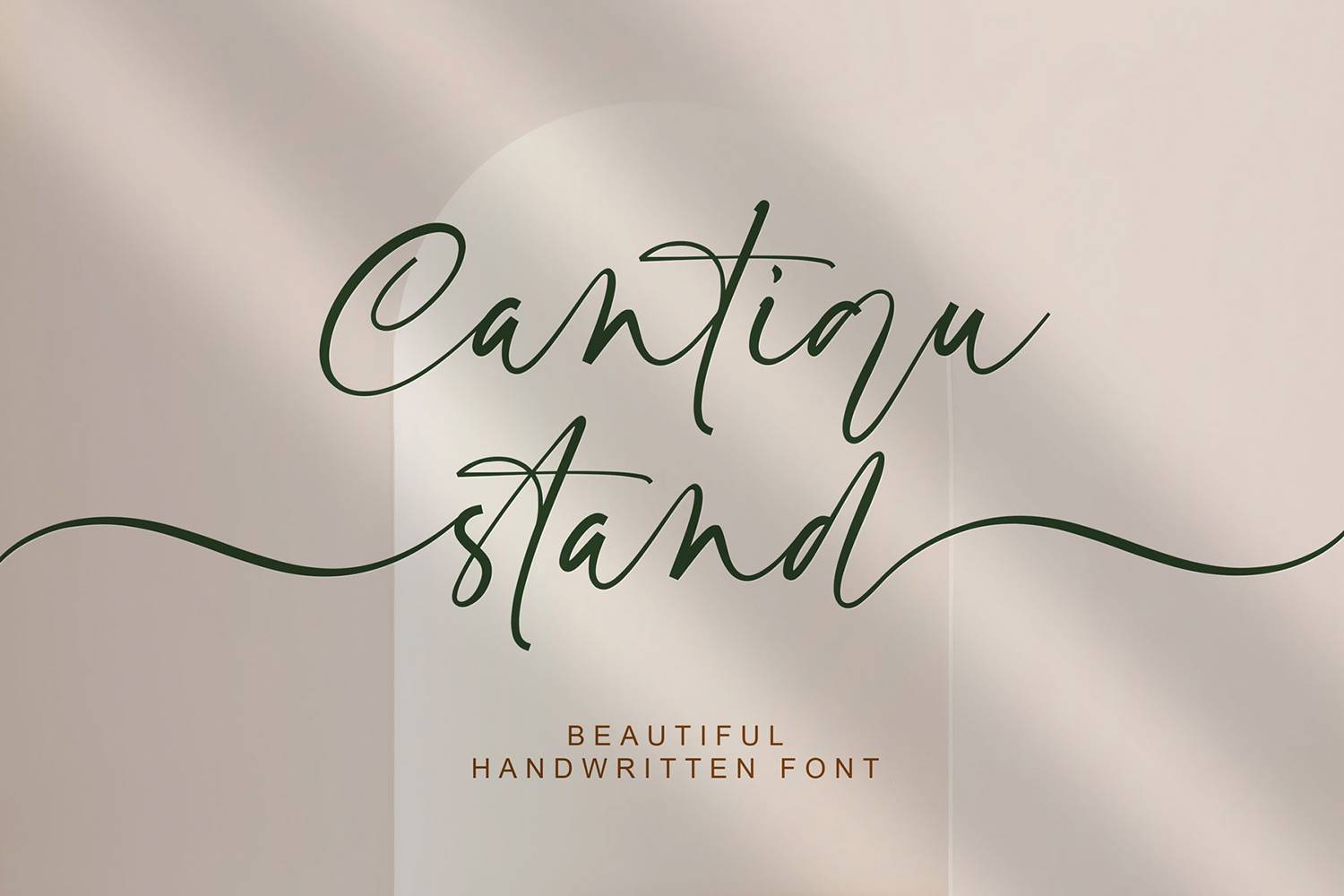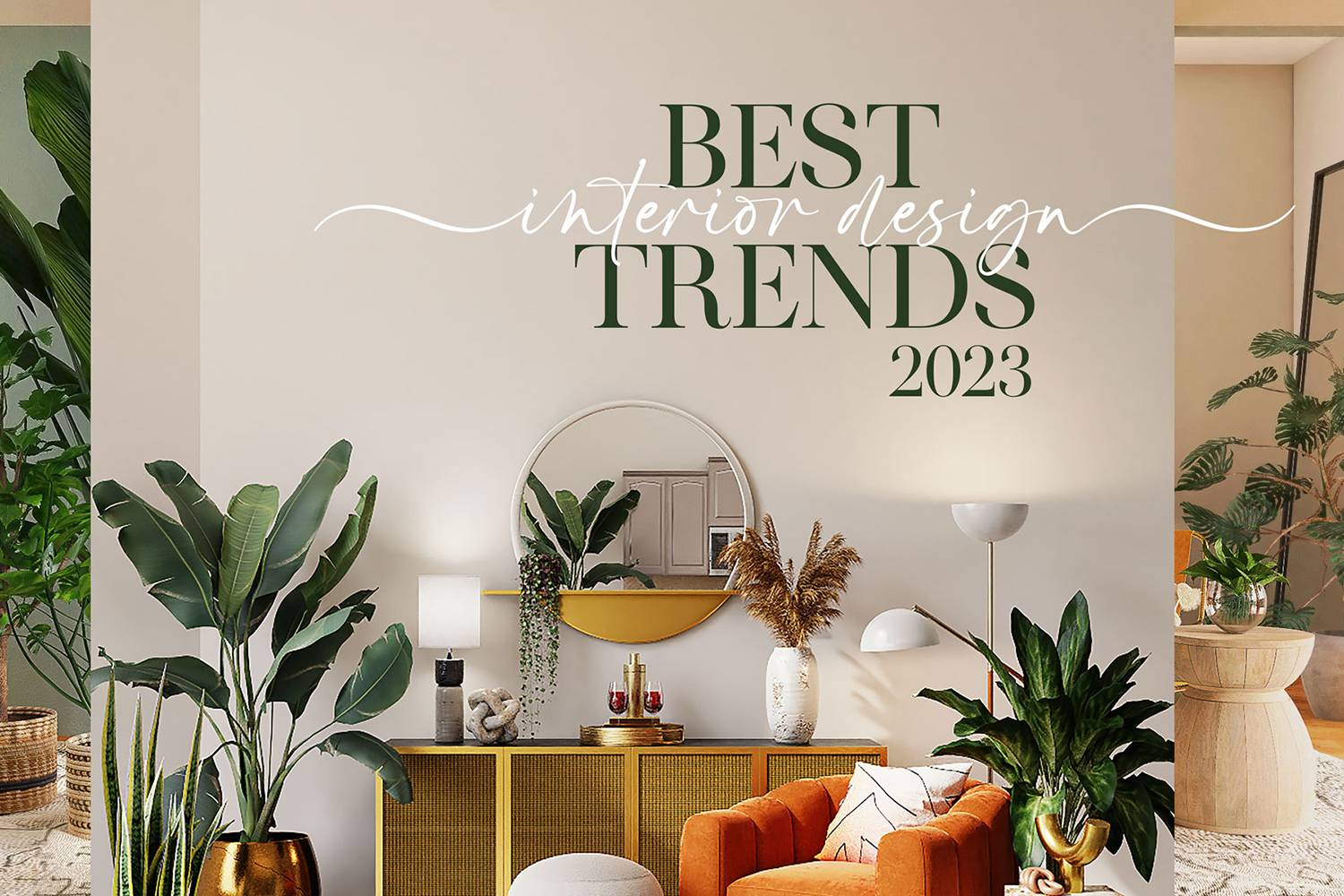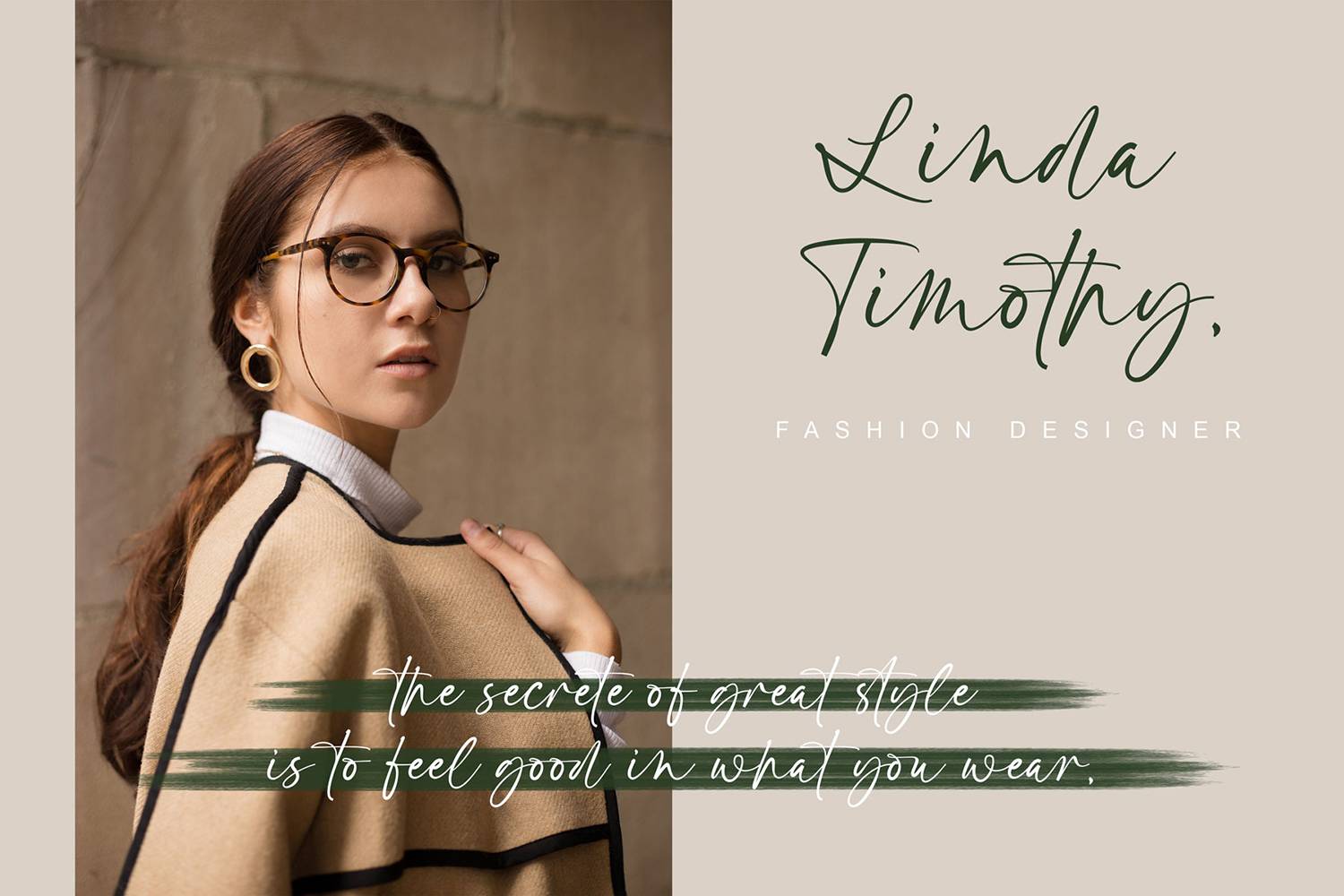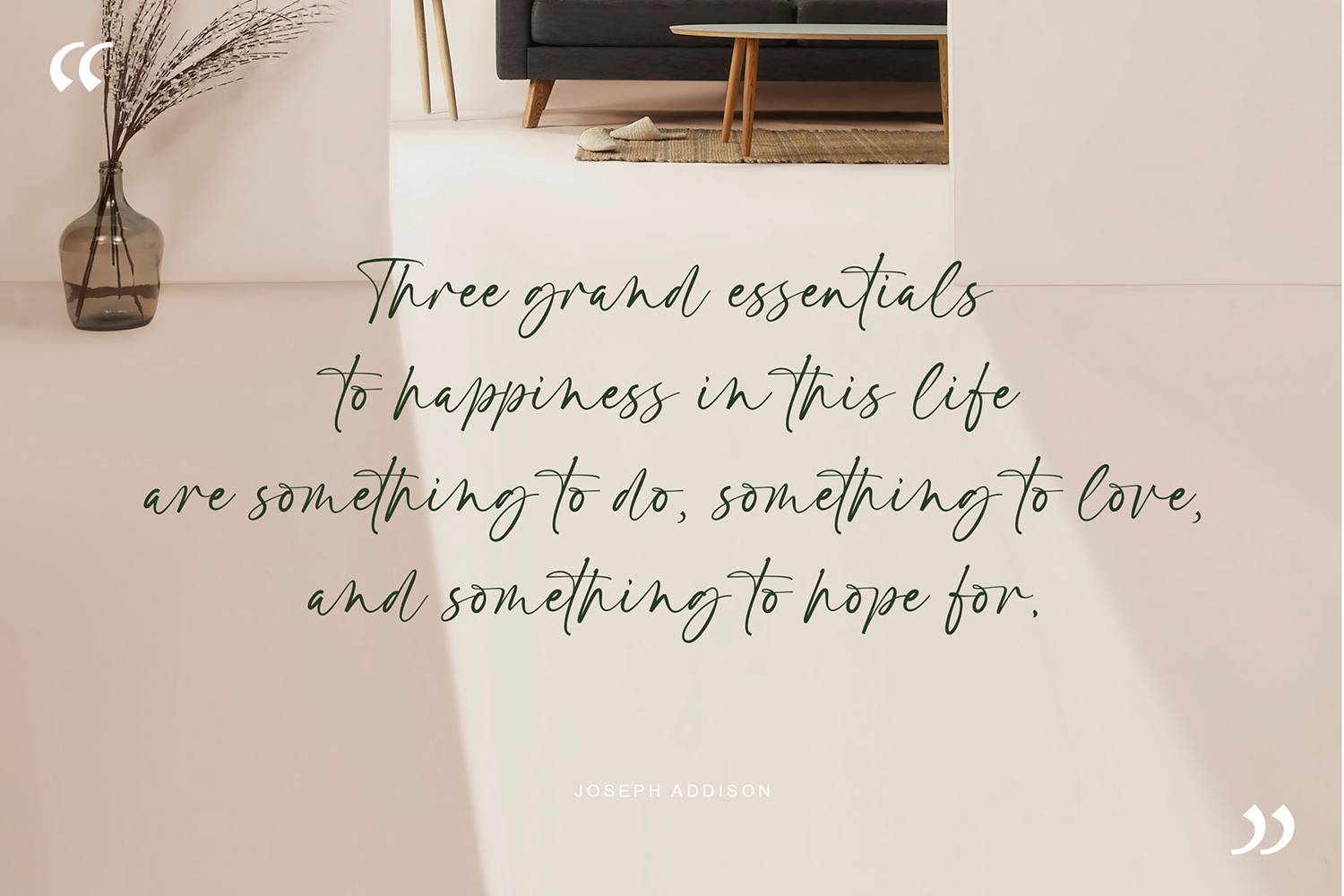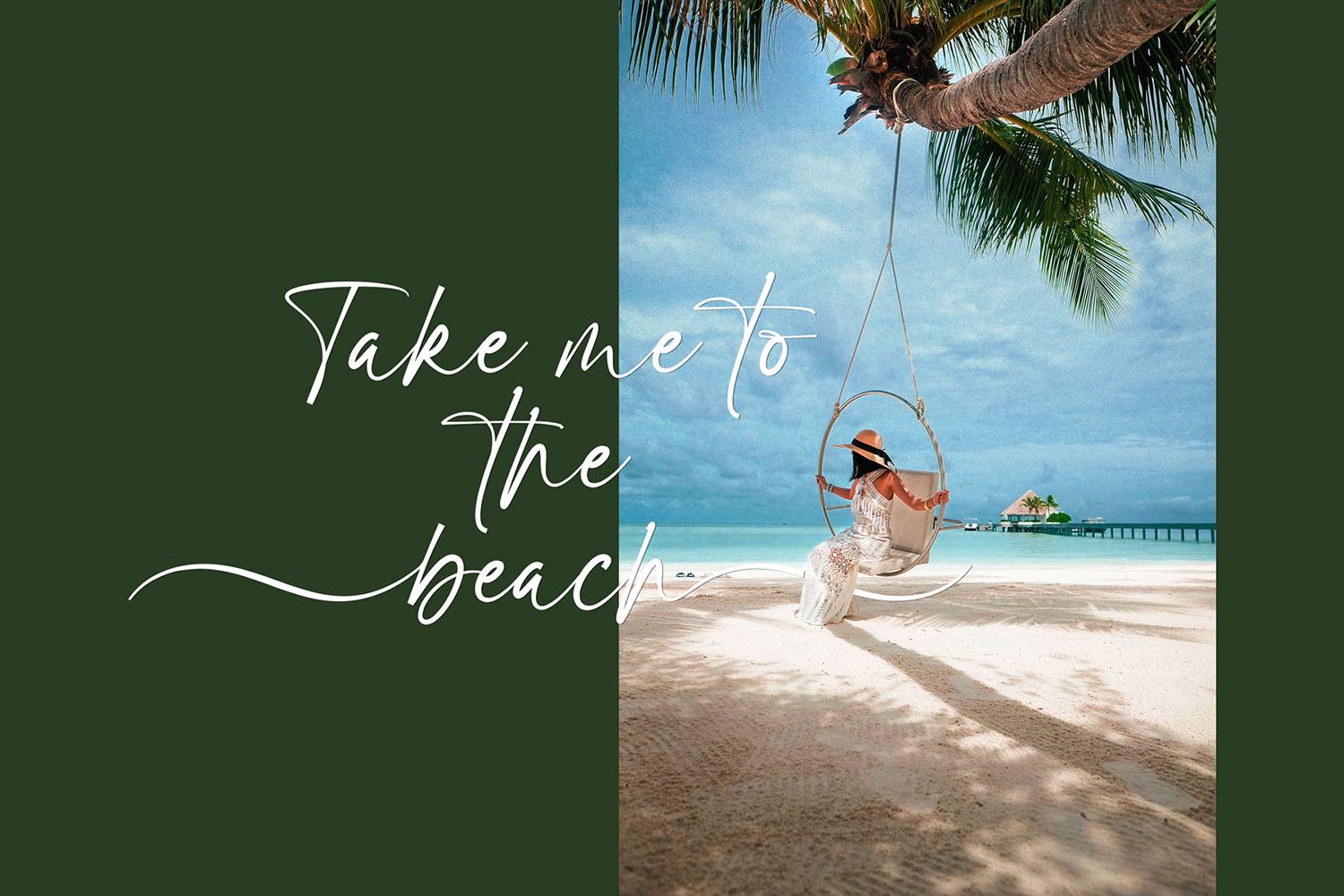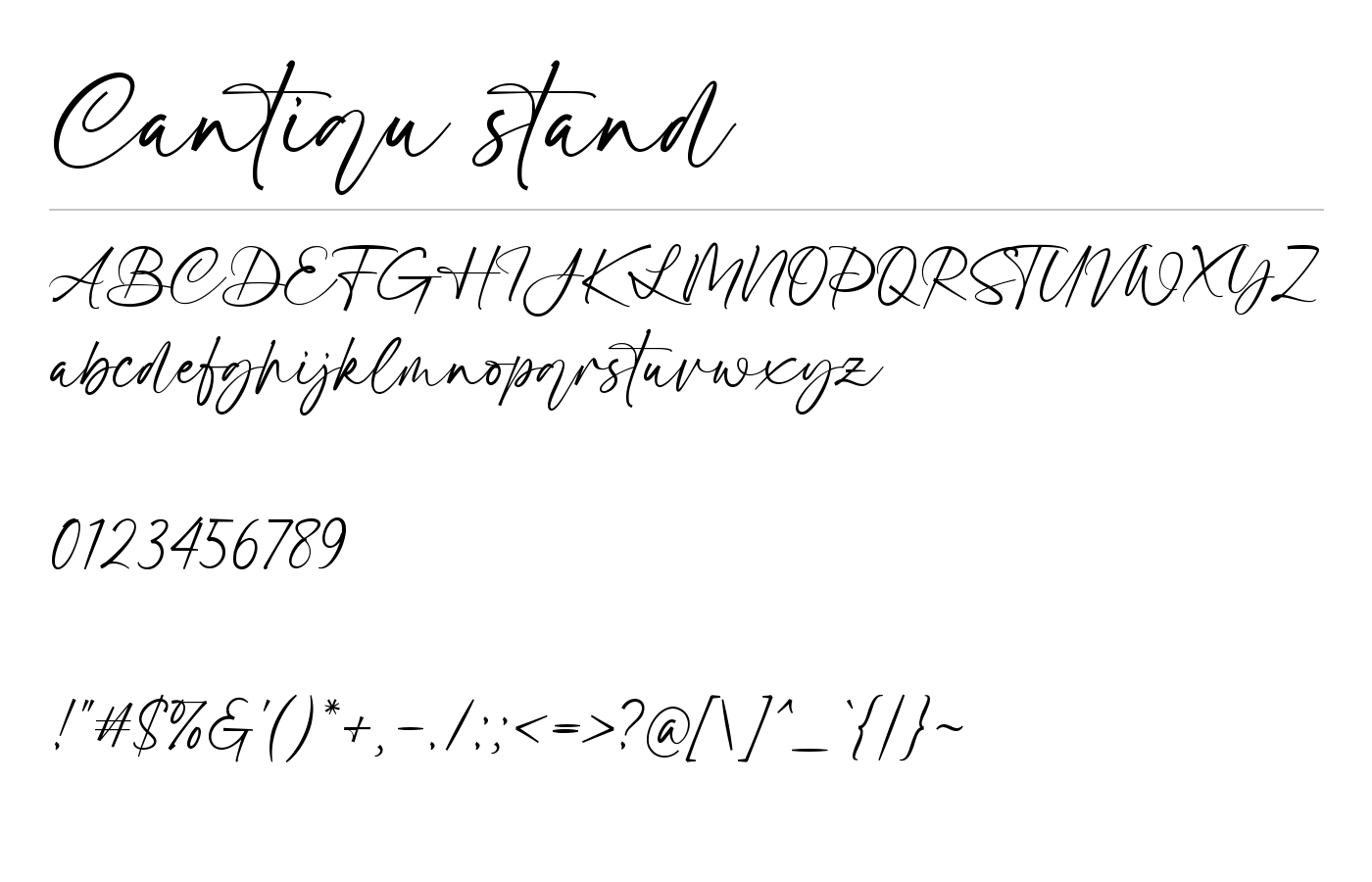
Cantiqu Stand is a delicate and elegant script font with a natural, handwritten feel, featuring thin, flowing strokes and a graceful, airy structure. Its slender letterforms and slightly playful yet refined style make it perfect for feminine branding, wedding invitations, and stylish editorial projects. This font works beautifully in designs that need a touch of sophistication combined with a personal, artistic flair.
Cantiqu Stand Font
About Cantiqu Stand Font
| Font family | Cantiqu Stand Font |
| Release date | 2022-05-01 |
| Designer | Dwi Ahidian |